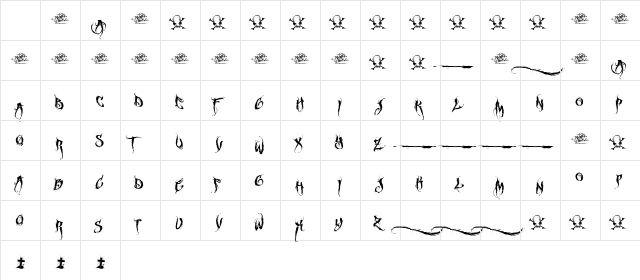
Complete MCF funera chaotic Regular glyph index. Displaying only characters natively supported by MCF funera chaotic Regular font.
MCF funera chaotic has an approachable, lighthearted character - its loose, expressive forms are well-suited to children's content, casual branding, and fun-first design.
Font Pairing: Pairs well with a rounded or humanist sans for body copy, maintaining the friendly tone without relying on MCF funera chaotic to carry extended reading.
Pro Tip: Use MCF funera chaotic at larger display sizes where its expressive character can land. Pair with a clean, simple sans for body copy to maintain readability.